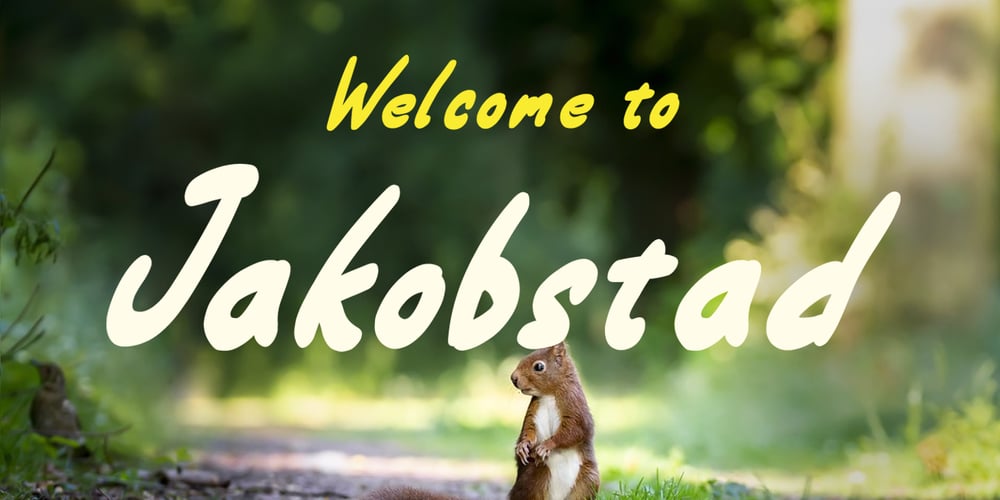
Jakobstad Font Family was designed by Simon Lillqvist and published by Simon. Jakobstad contains 1 styles and family package options. A bulky and personal hand written script font. And an ode to my home town!